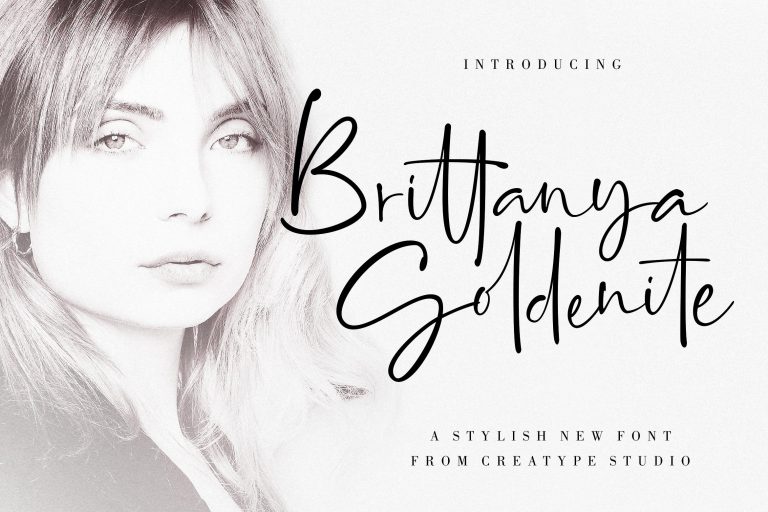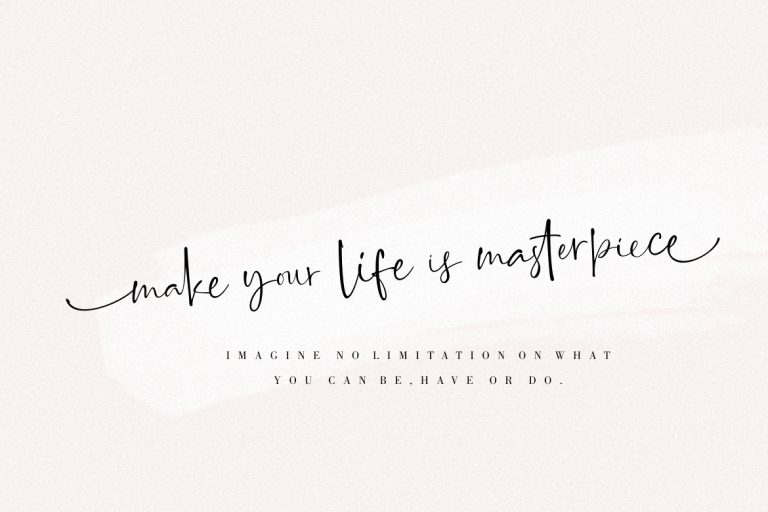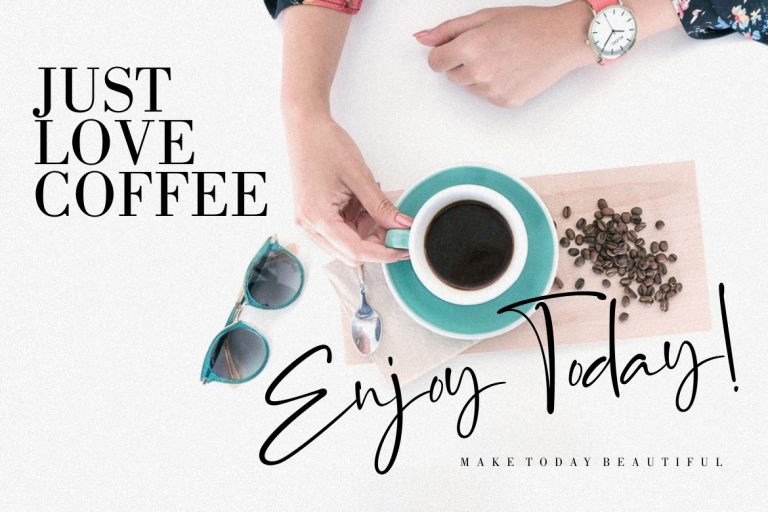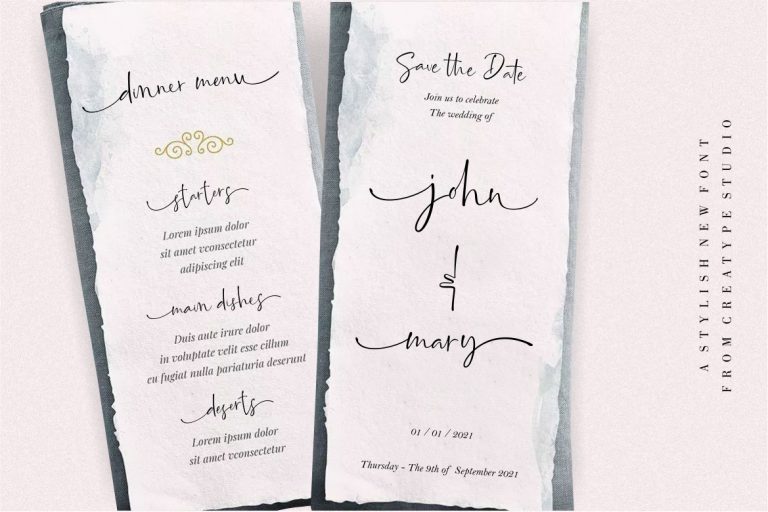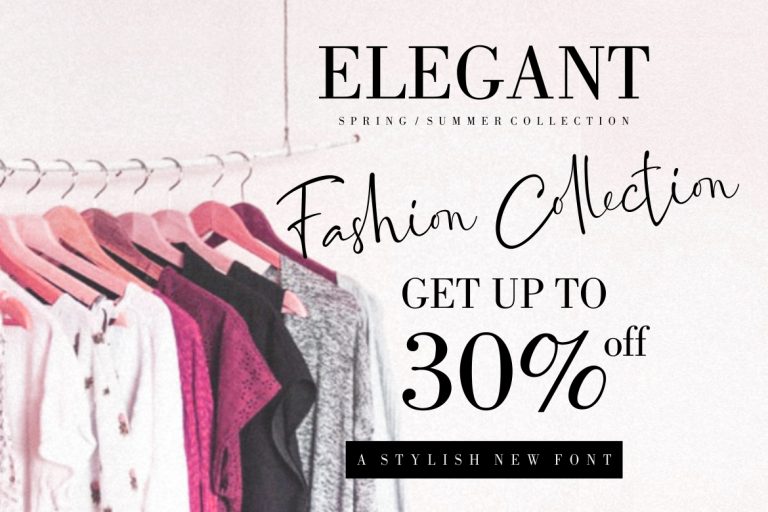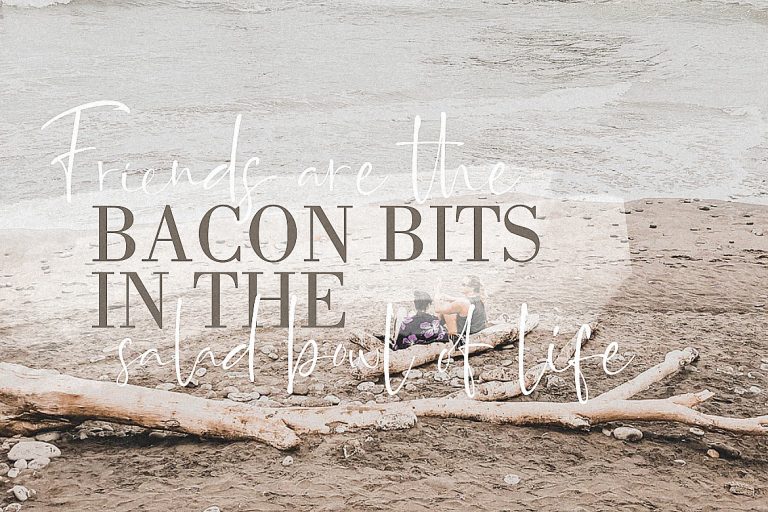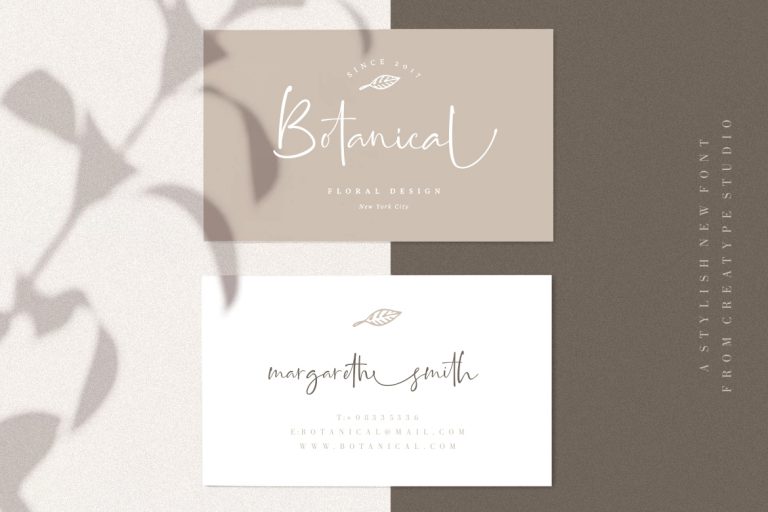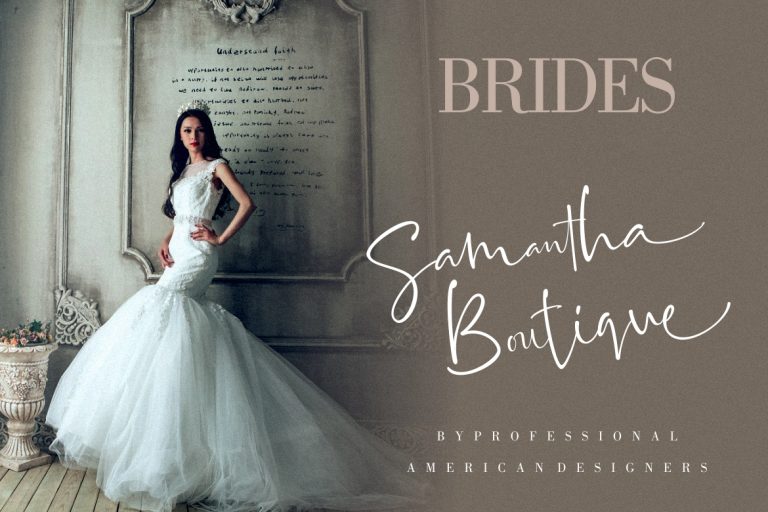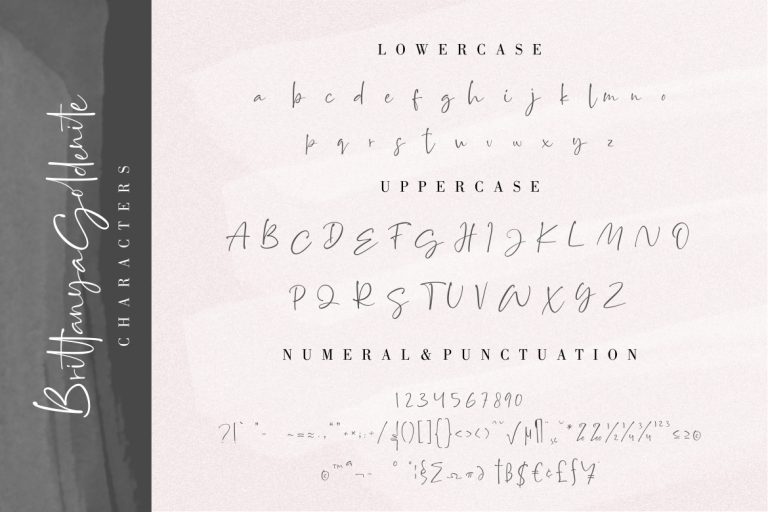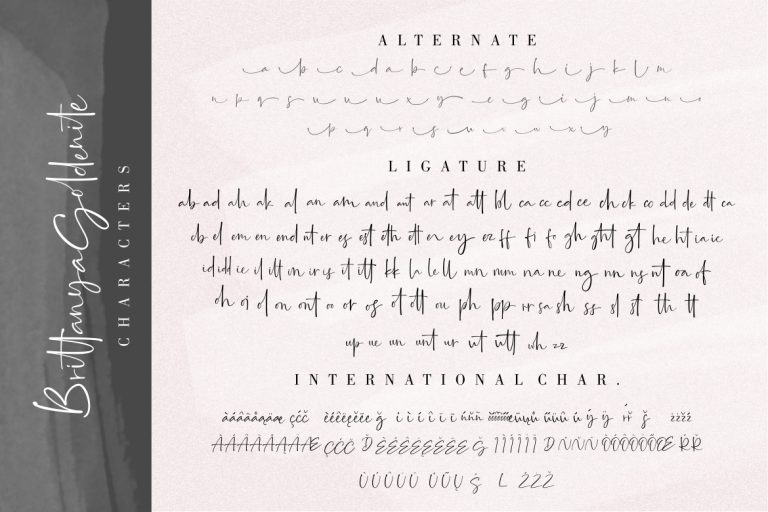
Brittanya Goldenite Stylish Handwritten
Brittanya Goldenite is a sophisticated and fashionable signature-style script. It’s looks so elegant and classy, for adding modern touch to your projects.
Brittanya Goldenite is perfect for branding projects, logo, wedding designs, social media posts, advertisements, product packaging, product designs, label, photography, watermark, invitation, stationery and any projects that need handwriting taste.
- Ton of glyphs (include Uppercase, Lowercase, Numerals & Punctuations, Ligature, Swashes)
- Ligature & Stylistic alternate
- Fonts include multilingual support for; Afrikaans, Albanian, Catalan, Danish, Dutch, English, French, Hungarian, Icelandic, Italian, Spanish, Portuguese, German, Swedish, Norweigen, Polish, Indonesian, Turkish, Zulu